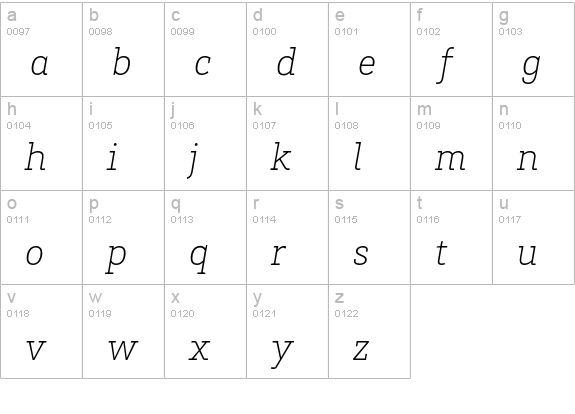
Brix Slab ExtraLight Italic Font Details
Brix Slab ExtraLight Italic is an airy, ultra-refined, italic variant in the Brix typeface family \xE2\x80\x94 well suited to minimalist headlines and refined display use.
Brix Slab ExtraLight Italic font is a sleek and modern typeface that exudes elegance and sophistication. Its thin, slanted design adds a touch of flair to any text, making it perfect for a variety of design projects. With its clean lines and stylish appearance, Brix Slab ExtraLight Italic font is sure to make a statement. The best part? This stunning font is available for free download at FontsMarket.com. Whether you're working on a branding project, creating a website, or designing a poster, Brix Slab ExtraLight Italic font is a versatile choice that will elevate your work to the next level. Download it now and add a touch of class to your designs.